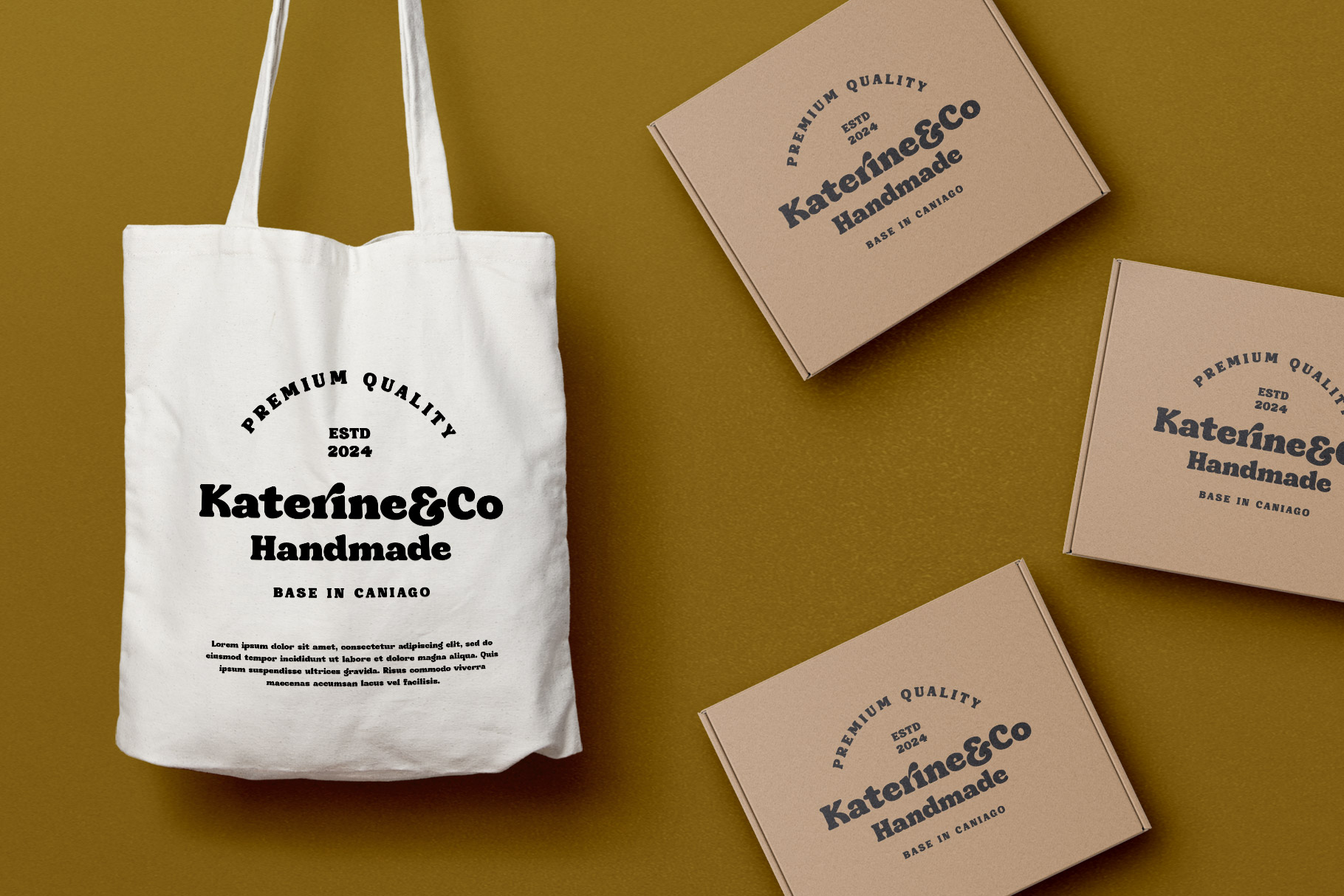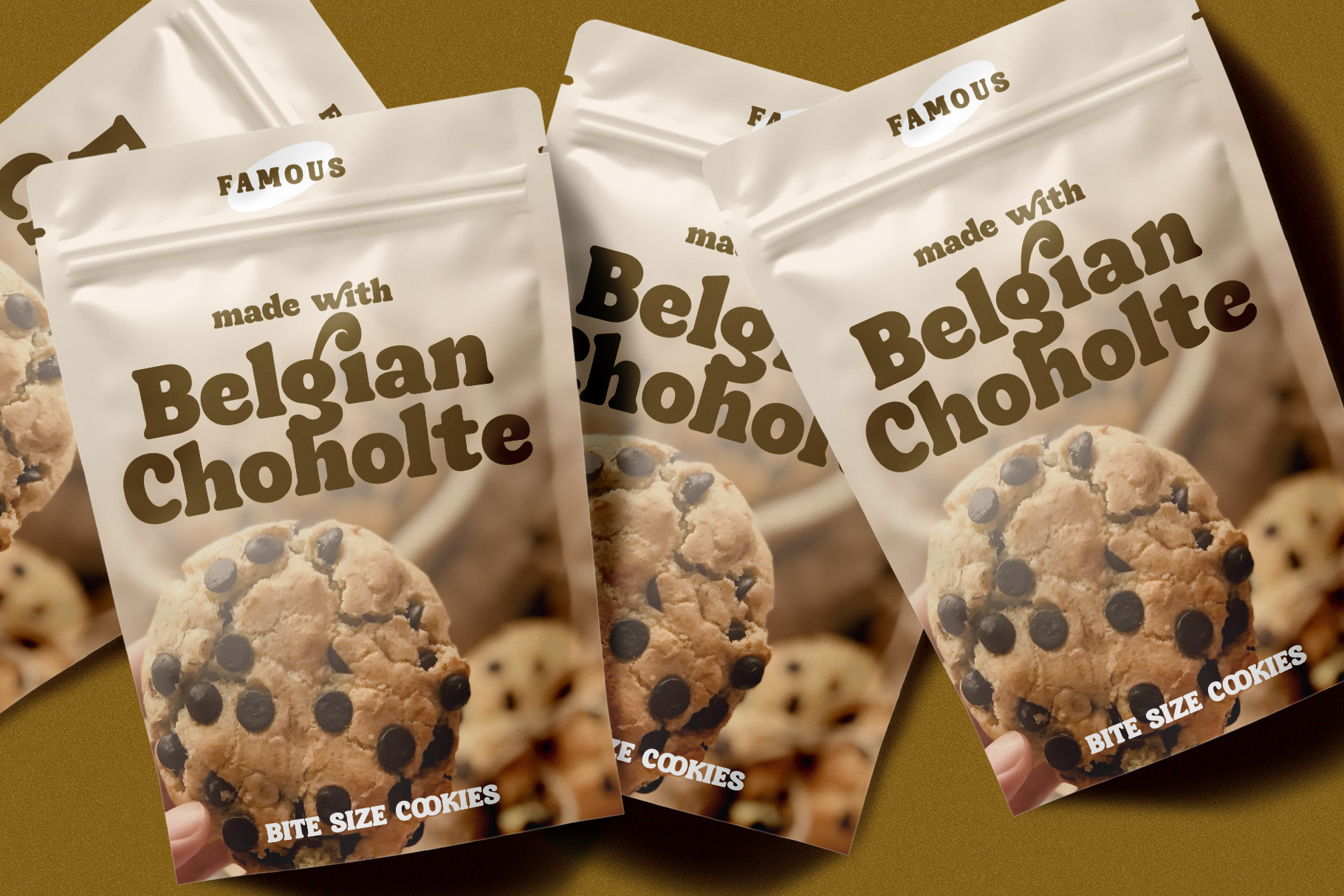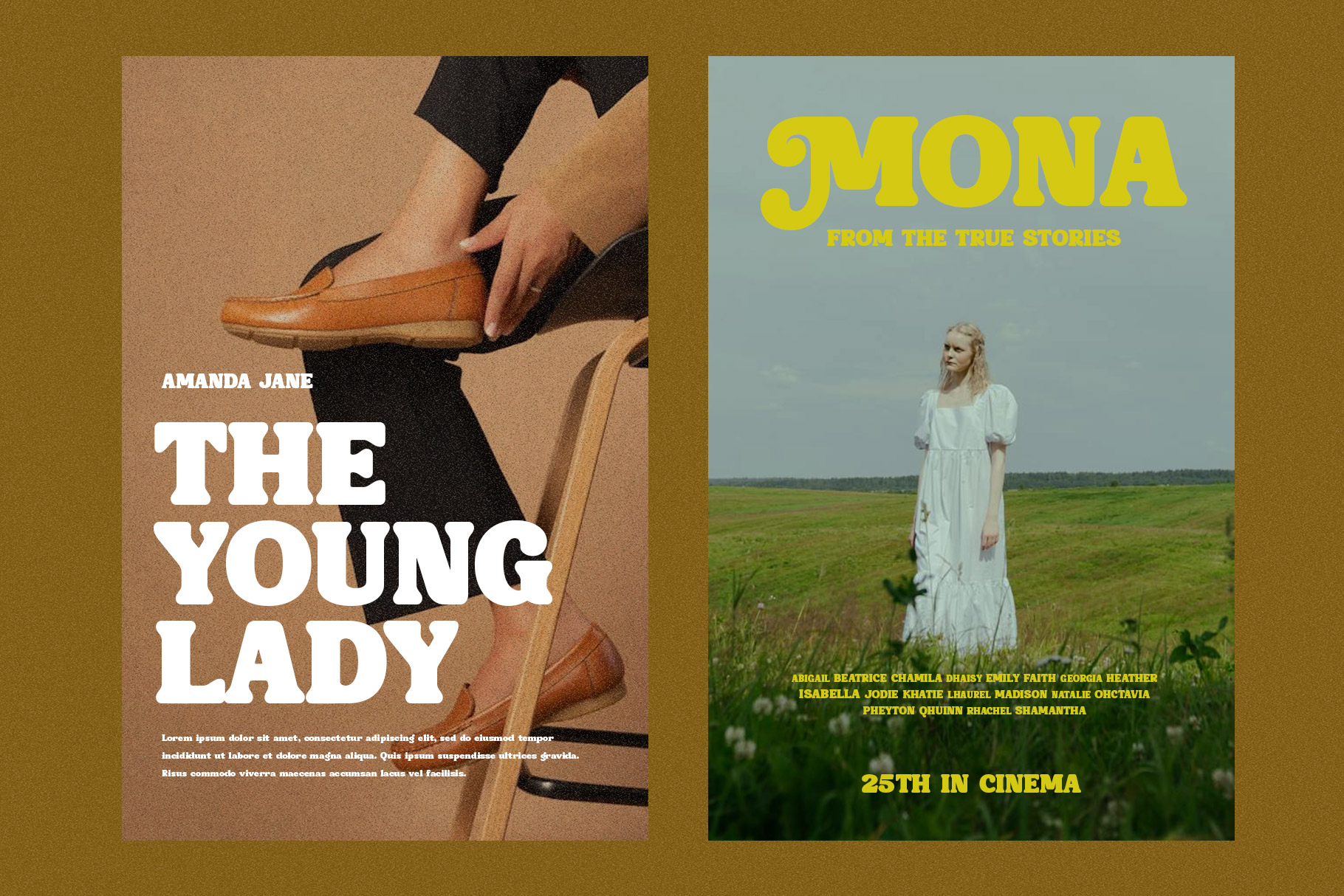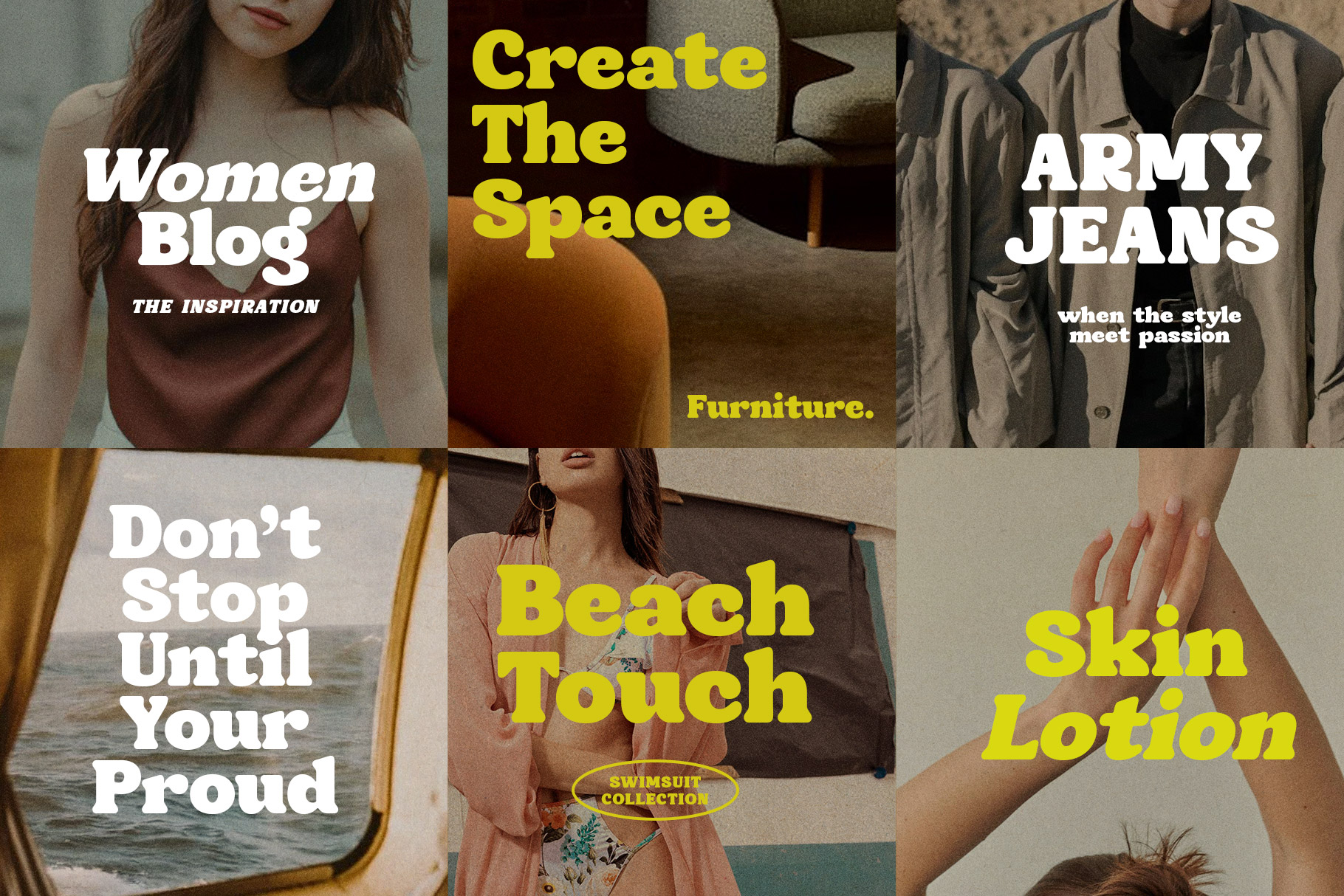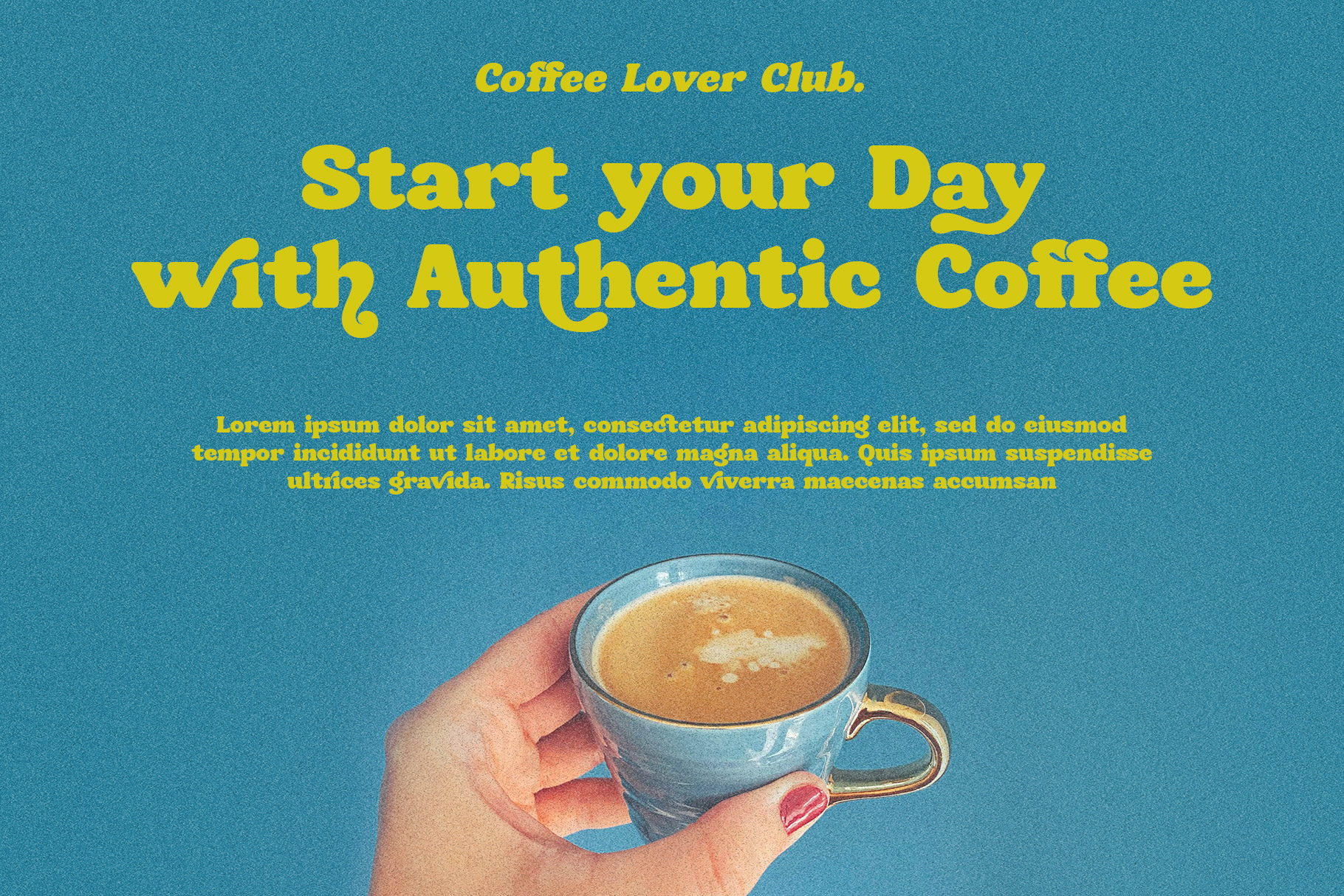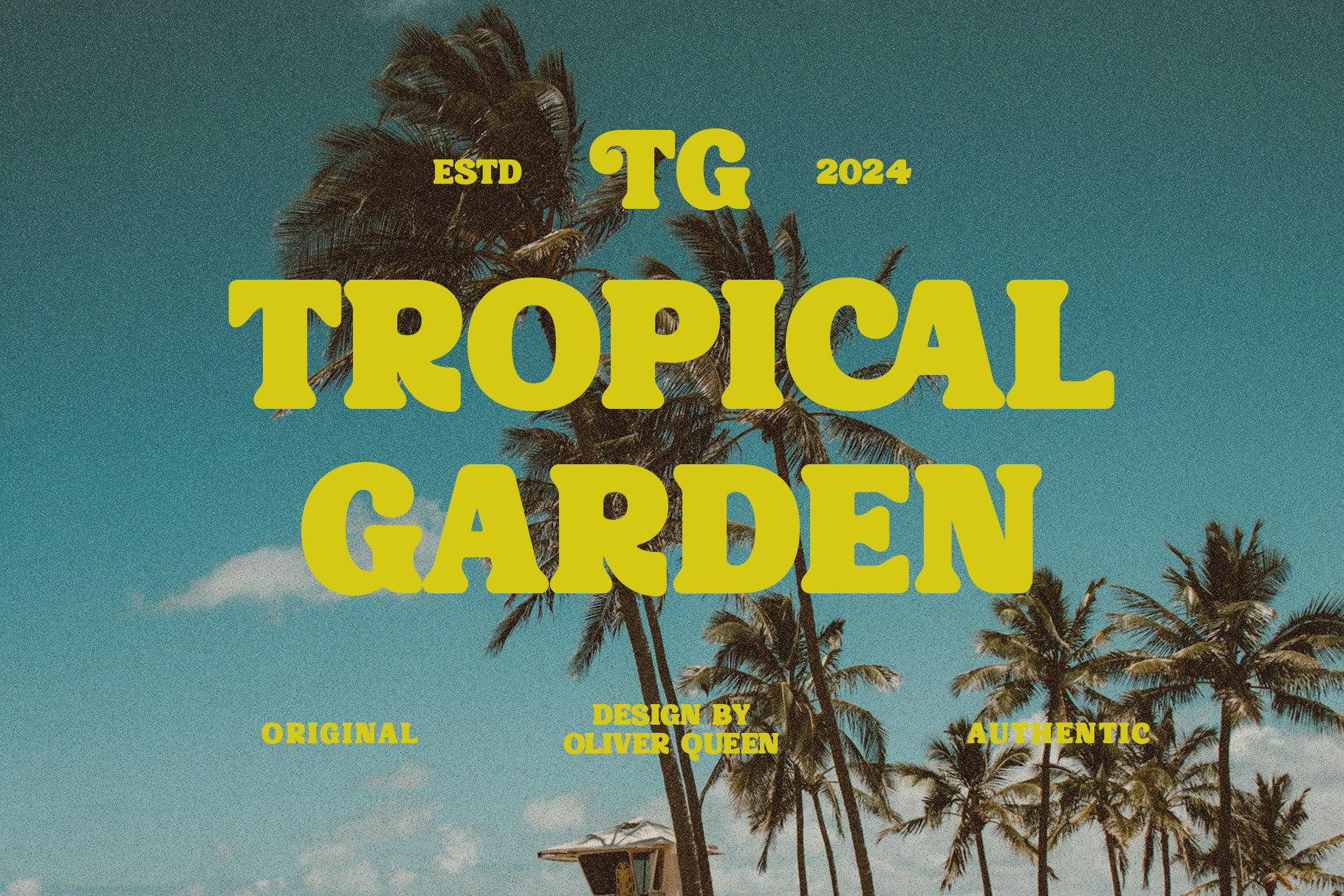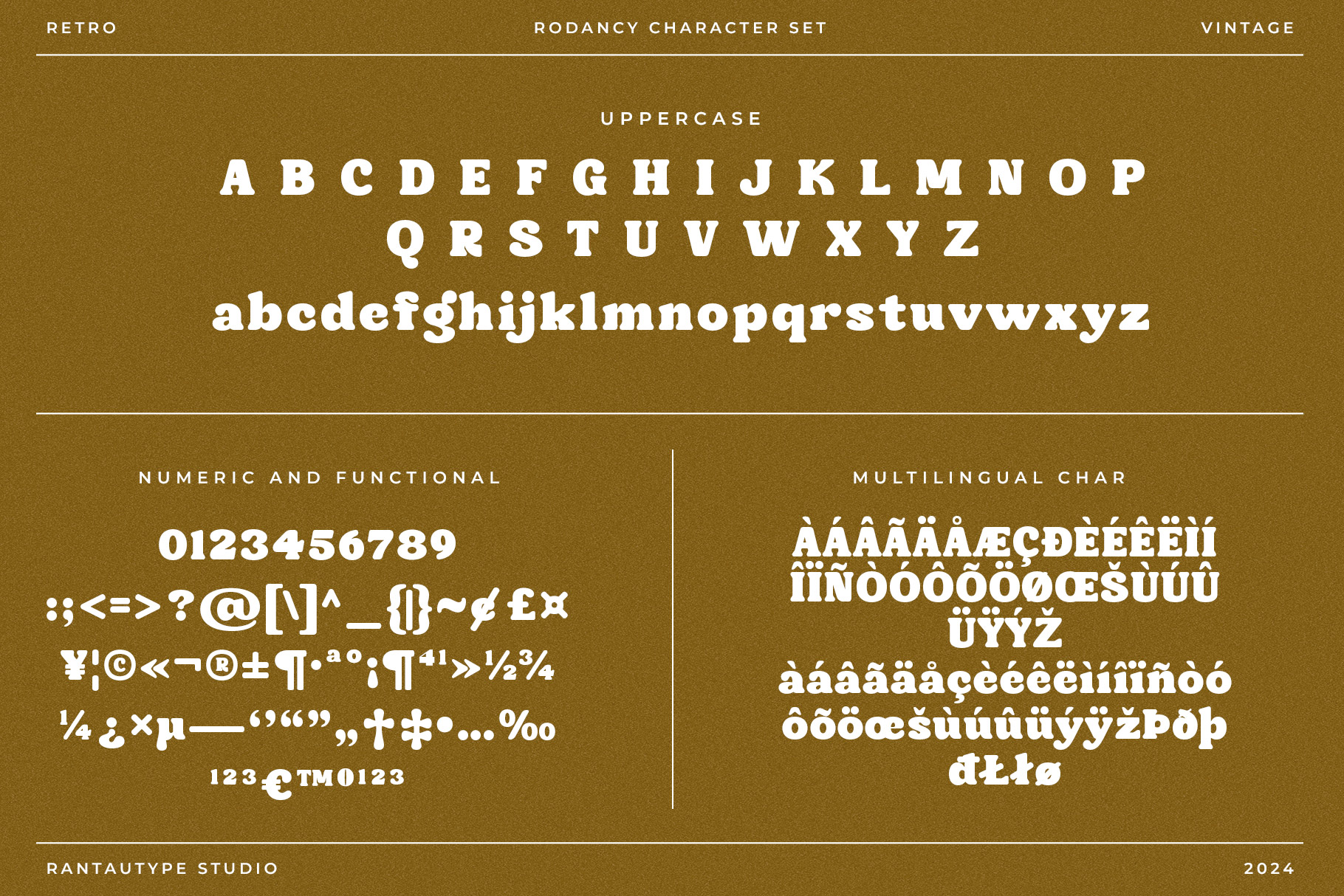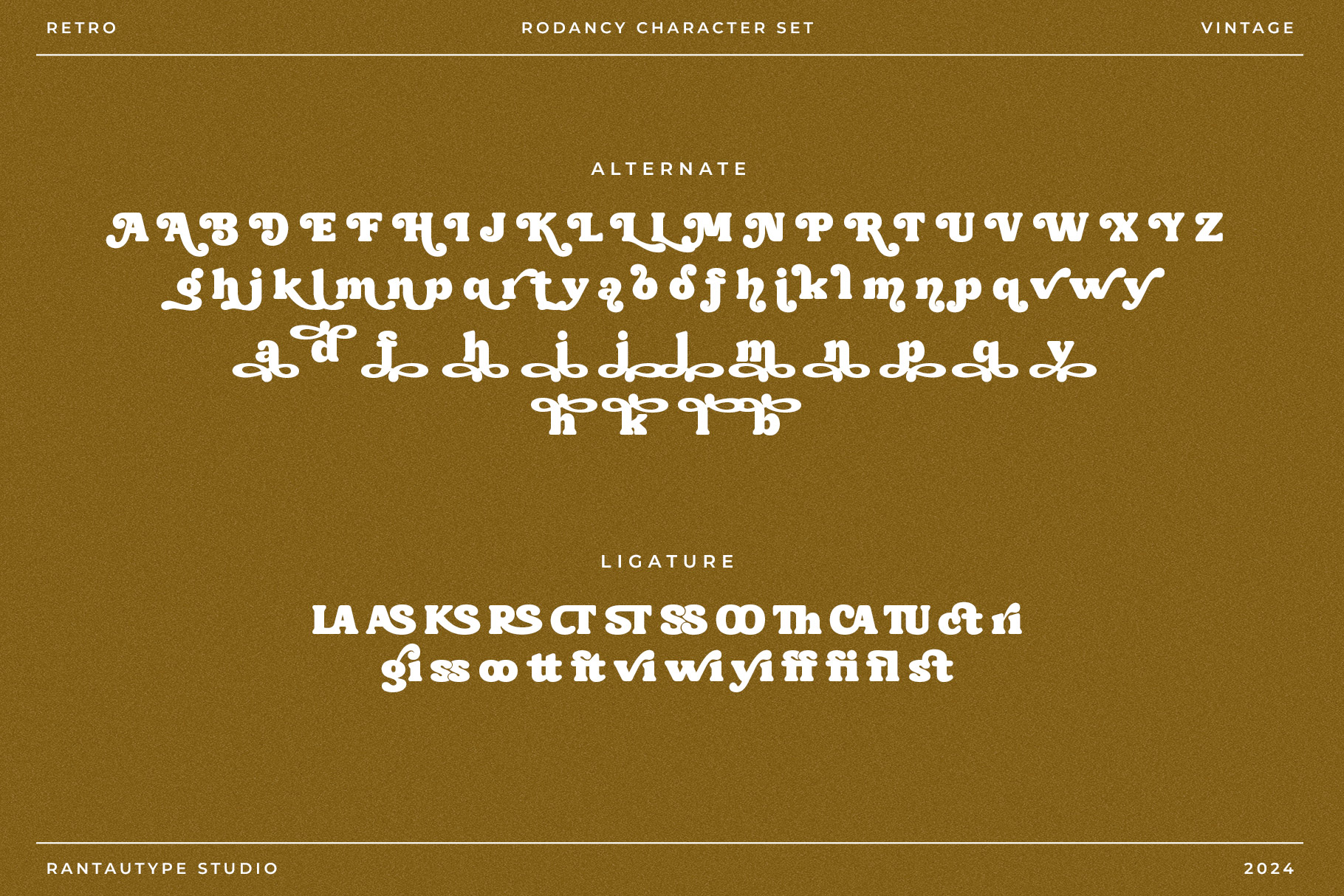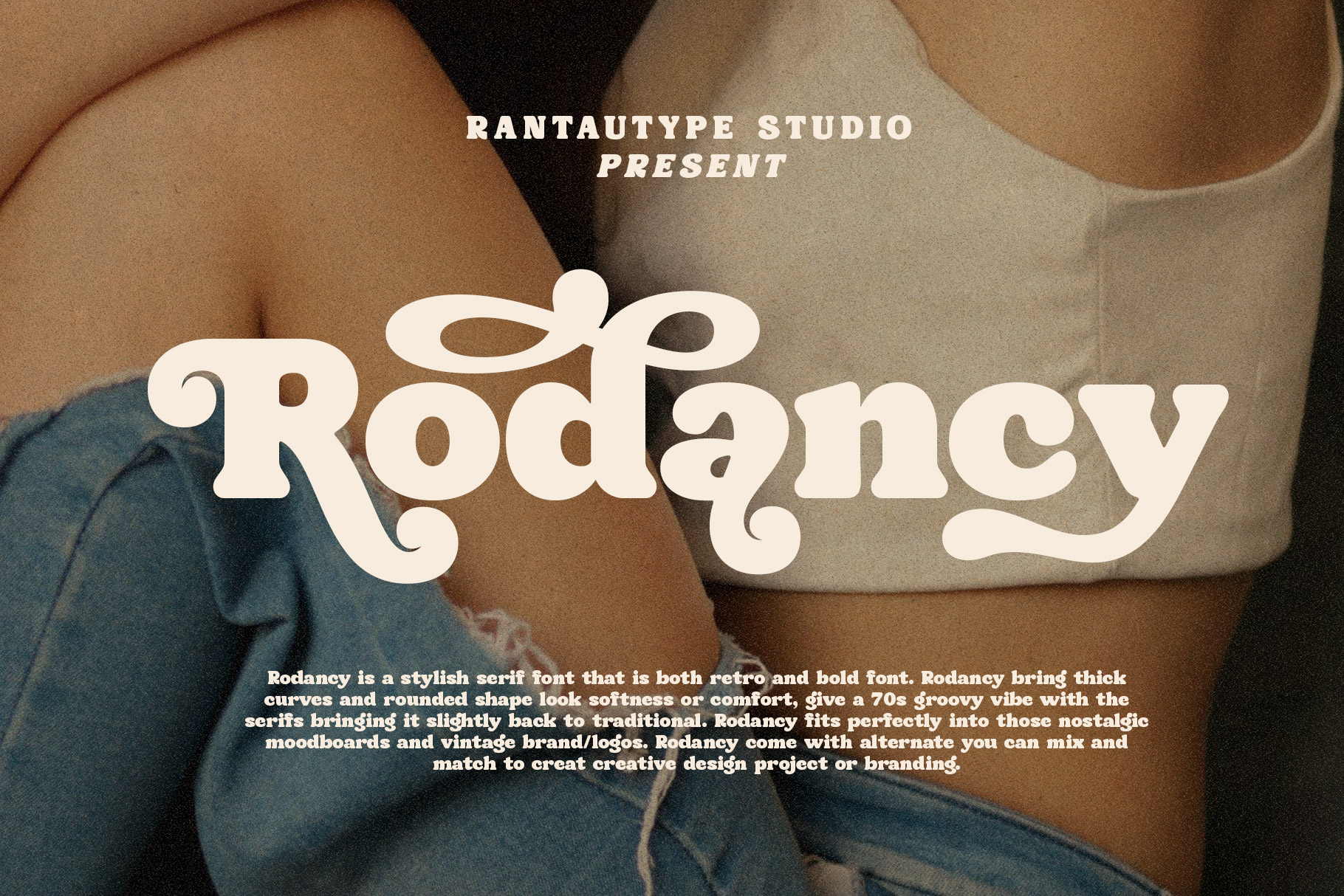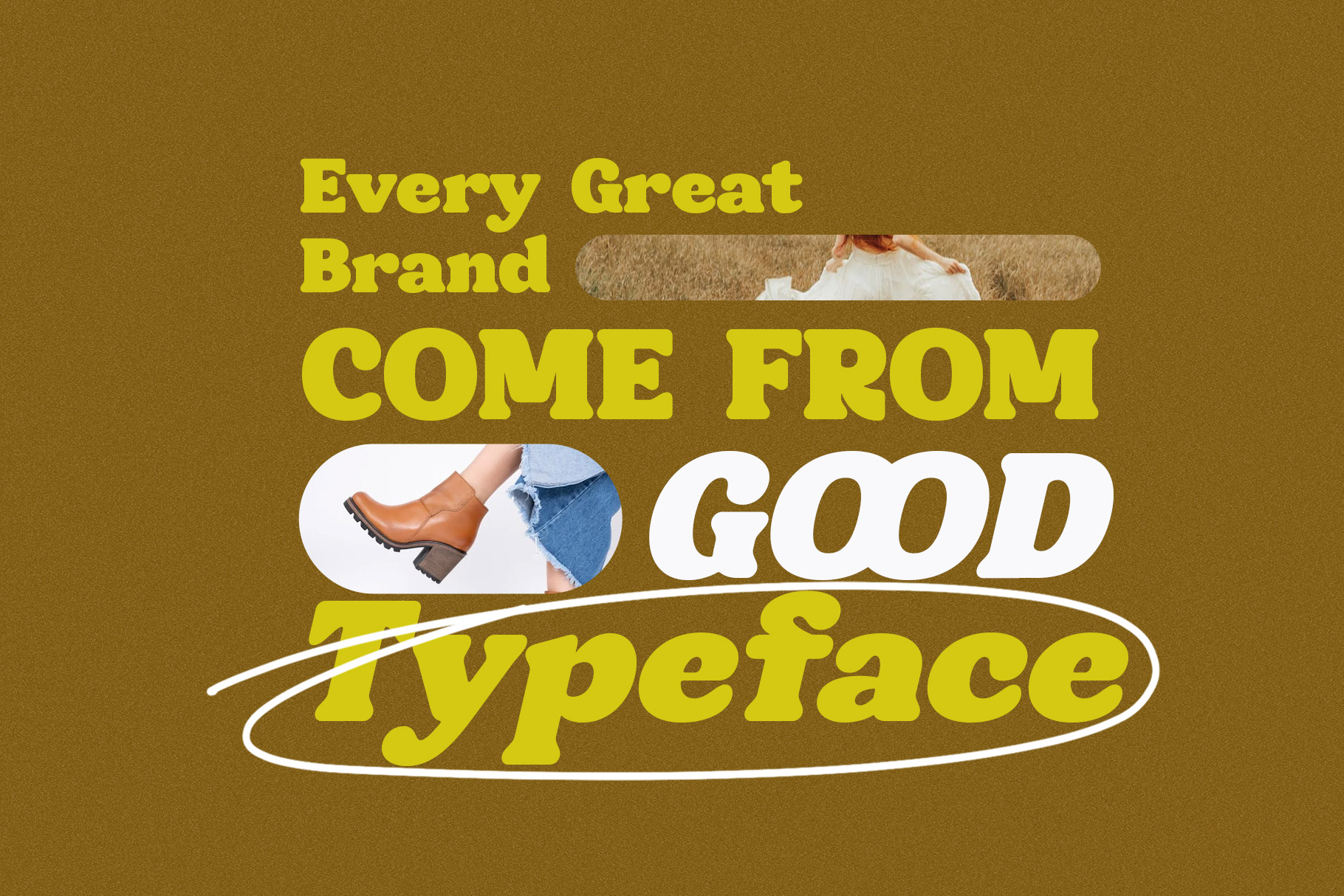
Rodancy Retro Vintage Serif Font
Rodancy is a stylish serif font that is both retro and bold font. Rodancy bring thick curves and rounded shape look softness or comfort, give a 70s groovy vibe with the serifs bringing it slightly back to traditional. Rodancy fits perfectly into those nostalgic moodboards and vintage brand/logos. Rodancy come with alternate you can mix and match to creat creative design project or branding.
Rodancy is a perfect choice for any creative endeavor, creating elegant, modern, chic, lifestyle design such as logotype, title, cover, branding, invitations, wedding designs, display and magazine, social media posts, advertisements, printed quotes, product packaging, corporate brand, product designs, labels, photography, watermarks, special events and any other project with retro or vintage touch.